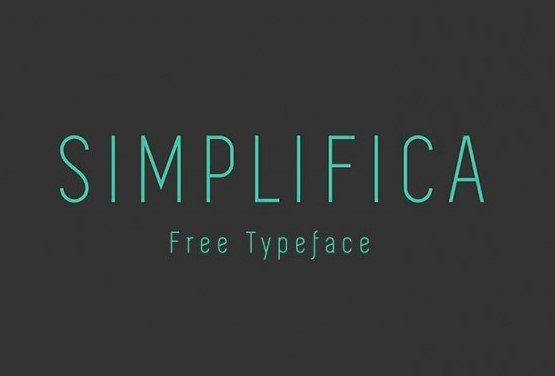
We are now sharing the best and modern sans serif typeface that is Simplifica Font that is available for free of cost to utilize for all designs. It is perfectly fine for all modern and elegant projects.
It is a clean and clear typeface that was designed by KAIWA that provided this awesome font for all graphic designs to build their portfolio strong and elegant.
You can check out the smartest uniform and skinny width typeface that has ascenders and legible text forms. Also, we attached a sample image for you to take a view and get an idea of these amazing designs.
View Of Simplifica Font
Before getting this font into your system, check out the instances of the great typeface that is best to work with pangram sans font which has unique and elegant characters set.
It is decent, elegant and amazing texture that works best in every situation or in every type of projects. If you want to get all the benefits of this font, then you must have to use this with concert one font.
This unque and elegant font which works best for copy paste and pairing with sunrise international font which has a popular texture so that can also be used in pairing also. That’s why each designer treated it as a really perfect font in all appreciate.
- Animated logos
- Promotional videos
- Vehicle wraps
- Wall murals
- Annual reports
- Magazine and newspaper ads
- Trailers